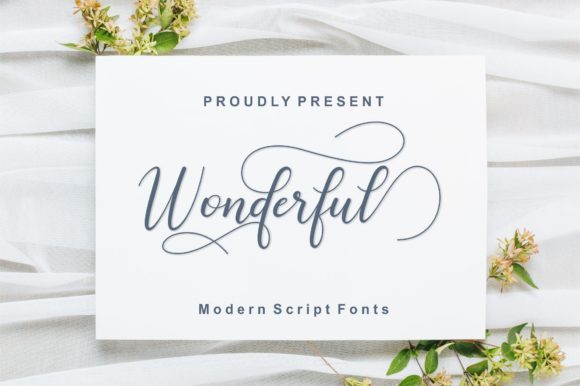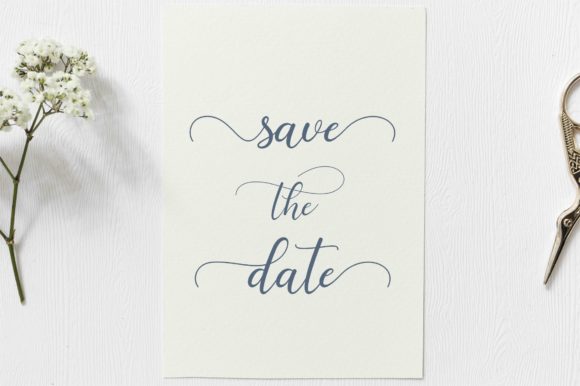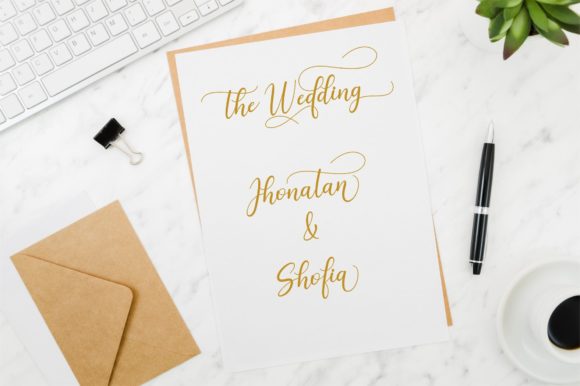
About Wonderful Font
Wonderful is a beautiful and timeless handwritten font. It is the best choice for creating attractive logos, branding, product packaging, invitation cards and quotes. The graphics in this font from characters to kerning are perfect for use in all aspects!